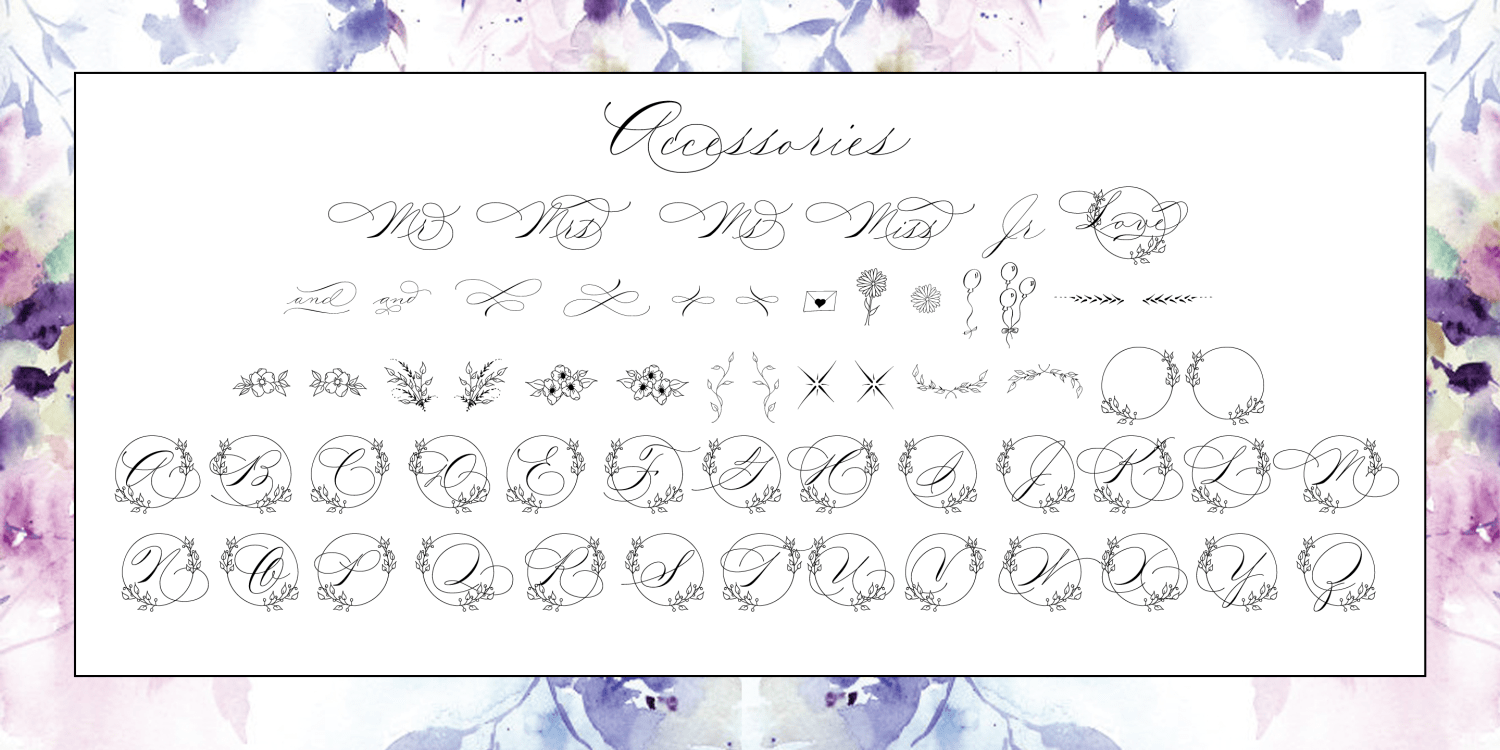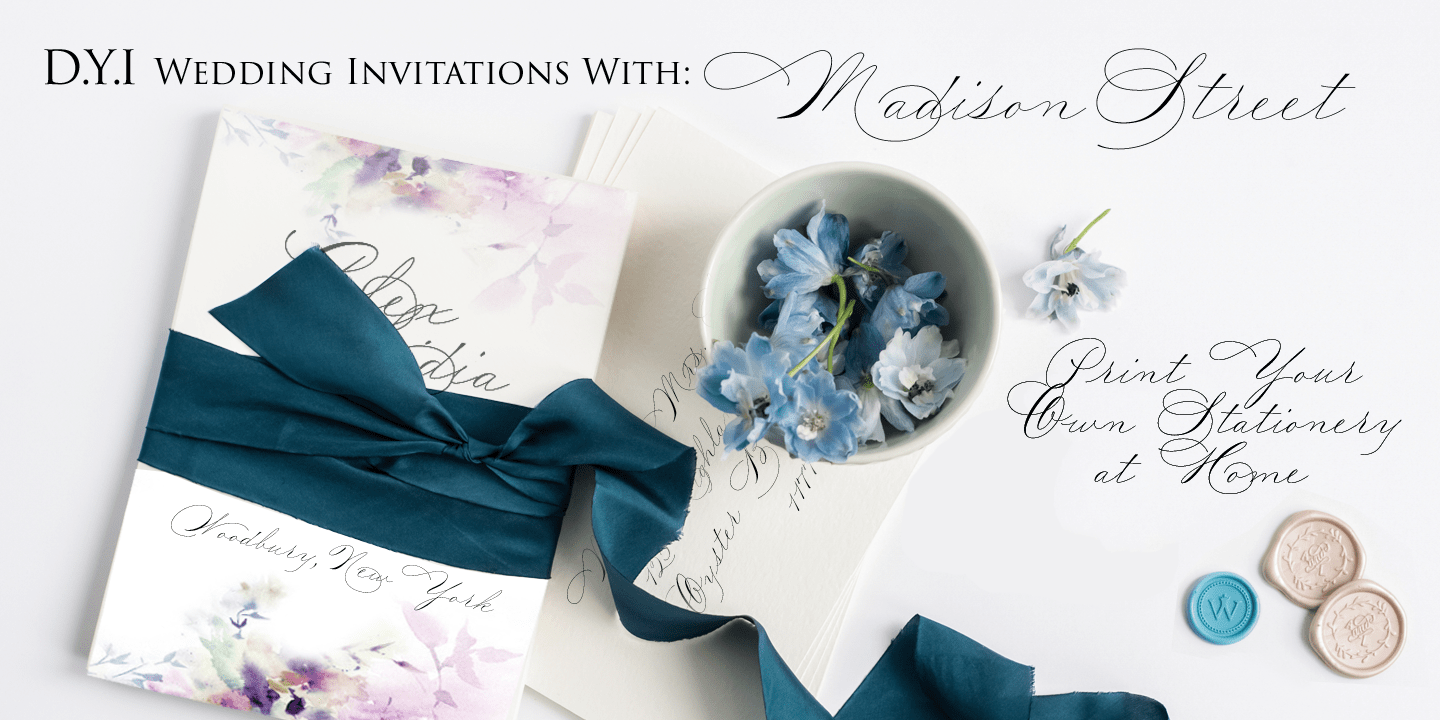
Madison Street Pro + Ornaments
We have bundled together Madison Street Pro and Ornaments to create the Madison Street Pro + Ornaments package.
Madison Street Pro is a classic pointed pen calligraphy font designed by Spencerian calligrapher Elaina DeBoard. With its elegant stylistic swashes, it has all the OpenType bells and whistles. The Ligature feature automatically substitutes beginning and ending letterforms, as well as 100 ligatures. Turn on the Swash feature for elegantly sweeping swash lowercase forms. Enable Stylistic Alternates for even more letter variations. There are also ten Style Sets to chose from. And many more OT features! Madison Street Pro supports an extended European character set.
Madison Street Ornaments was created as a companion for any of the other the Madison Street fonts. In addition to the floral and decorative fleurons, the Ornaments font also contains pre-composed salutations, Mr, Mrs, Ms, and Miss, Jr, and a couple of swash "and". There is also a set of single letter monograms, A-Z, within a decorative frame. All of the ornaments are weighted to work perfectly with the Madison Street fonts, and can be combined to create distinctive placecards, invitations, and much more! The font package contains a Character Map so finding the ornaments is easy.